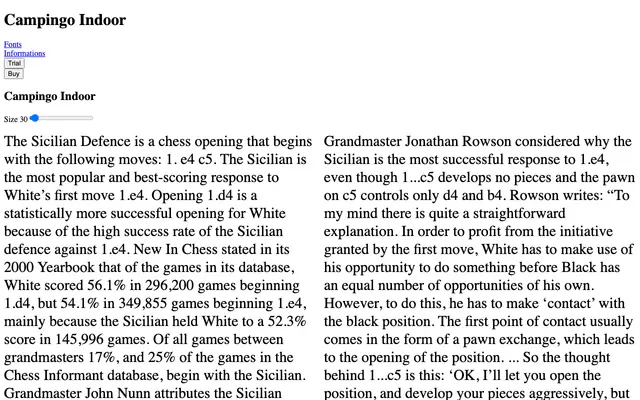
Campingo Indoor
A text serif from Pizza Typefaces, shown across large and small size specimens with an emphasis on reading comfort.
Campingo Indoor is presented in two size settings on the foundry's specimen page, suggesting it is designed with distinct performance at display and text sizes in mind. The specimen copy is set in French and English, indicating at minimum a broad Latin character set. Beyond the name and these specimen details, the page offers little additional information about weights, designer or release year.
The specimen text and name suggest a warm, legible serif suited to body text settings at both large and small sizes, consistent with a humanist serif classification designed for editorial or book use.